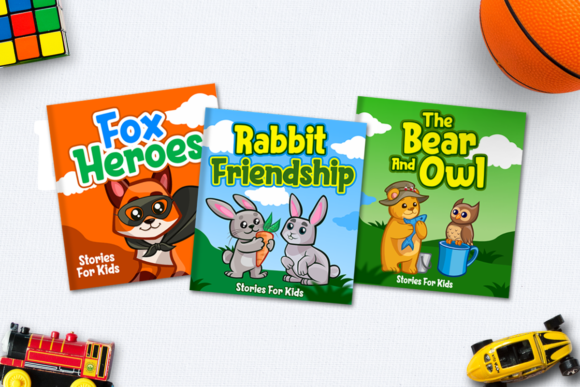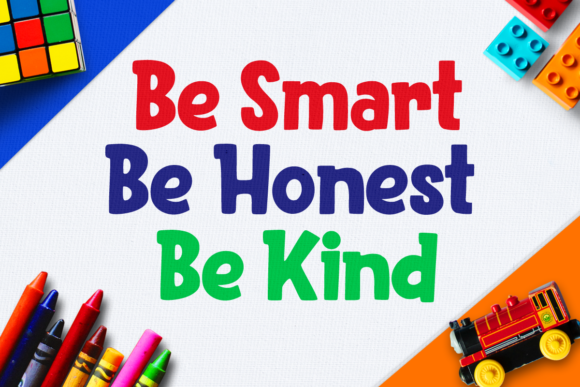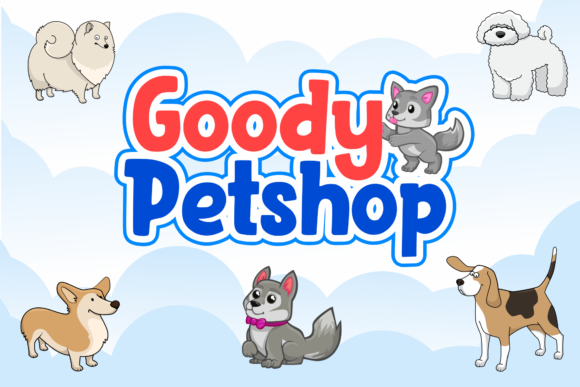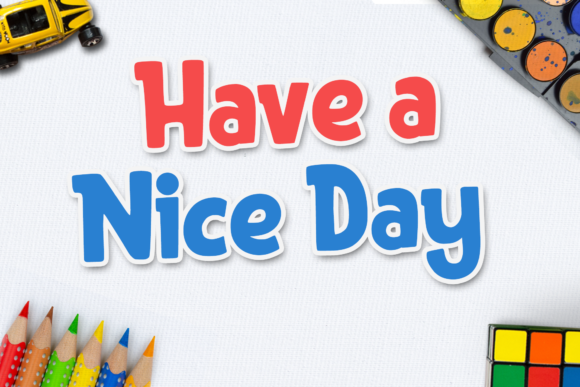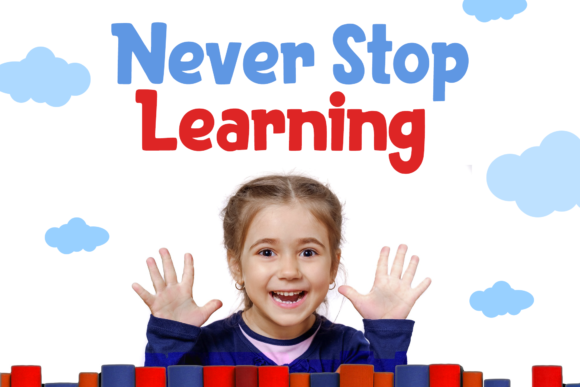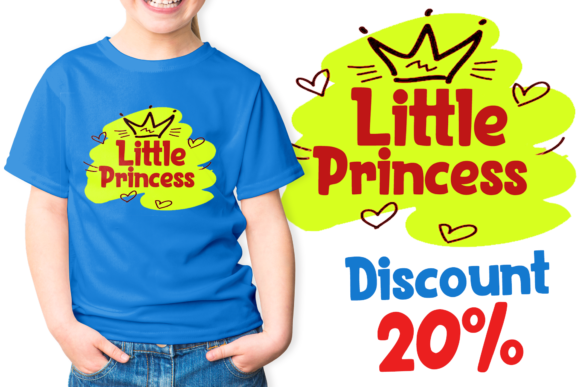
Introduction to Hoops! Font
Have you ever been brainstorming ideas for a creative project, only to feel stuck when it comes to the perfect font? We’ve all been there. The blank page stares back at us, begging for inspiration. But then, it hits – a spark of creativity that ignites a vision of fun, colorful characters and whimsical designs. For designers seeking that special something, the Hoops! Font is here to bring a smile to your face and a dash of personality to your projects.
This delightful display font is more than just a design resource – it’s a key to unlocking high-quality, engaging visuals that will captivate your audience. With its transparent background and charming, cartoonish vibe, the Hoops! Font is the perfect addition to any creative project, from kids’ illustrations to bold brand identities.
Key Features of Hoops! Font
- High-quality design resource with a playful, whimsical feel, perfect for creative projects.
- Transparent background, making it easy to use in various design applications and allowing for seamless integration with other design elements.
- Perfect for use in digital and print design projects, including social media graphics, logos, and advertising materials.
- Includes a range of font styles and weights, allowing designers to customize their designs and add depth and visual interest.
Honest Review: Hoops! Font
I recently had the chance to work with the Hoops! Font in a creative project, and I was impressed by its high quality and versatility. As a design resource, it’s perfect for adding a playful touch to your work.
- What works well: ✨ The font’s bold lines and playful style make it perfect for creating eye-catching graphics and designs.
- What works well: ✨ The Hoops! Font is highly customizable, allowing you to adjust the size, color, and style to fit your needs.
However, there are a few limitations to consider: ⚠️ The font may not be suitable for formal or professional designs, as it’s more geared towards playful and creative projects. Additionally, the free version has some limitations, such as a limited character set.
Overall, I’m impressed by the Hoops! Font and would definitely recommend it for designers looking for a high-quality, creative design resource. With a little creativity, you can achieve amazing results with this font.
Tips for Getting the Most Out of Hoops! Font
When using the Hoops! Font, consider the following tips: use it on a transparent background to create a clean and modern look, experiment with different font sizes and styles to add visual interest, and combine the font with other design elements to create a cohesive visual identity.
The Hoops! Font is a great resource for a variety of creative projects, including social media graphics, blog posts, and marketing materials. Its high-quality design and transparent background make it perfect for use in a range of applications, from web design to print materials.